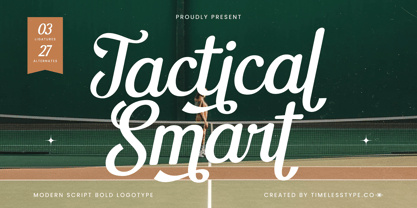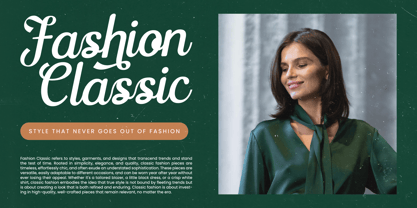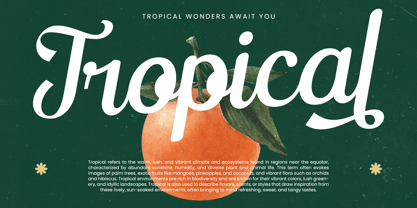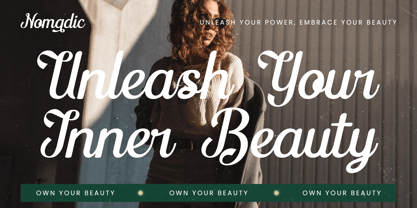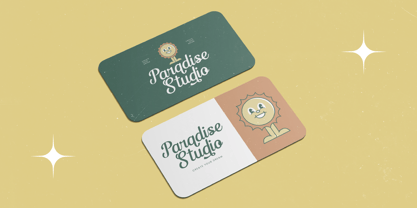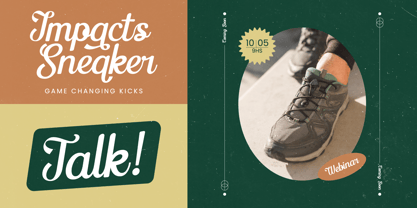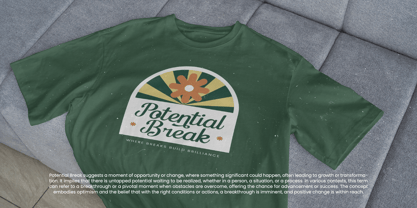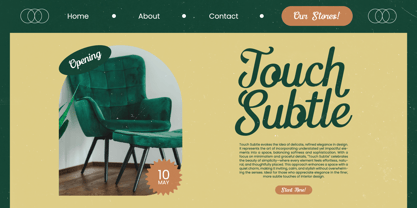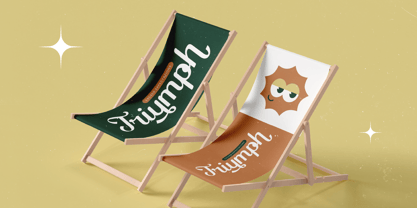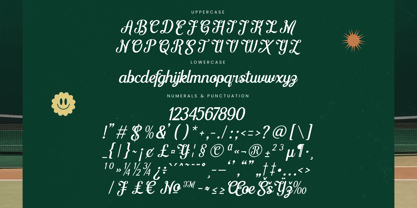
Tactical Smart
by Timelesstype Studio
The Tactical Smart Font Family was designed by Heru Utama Putra and published by Timelesstype Studio. Tactical Smart contains 2 styles and family package options. More about this family
Tactical Smart - Modern Script Bold Logotype , from Timelesstype, Suitable for any projects such as: logos, branding projects, homeware designs, product packaging, mugs, quotes, posters, shopping bags, t-shirts, book covers, name card, invitation cards, greeting cards, label, photography, watermark, special events, and all your other luxury and beautiful projects that need a Luxury Serif taste.